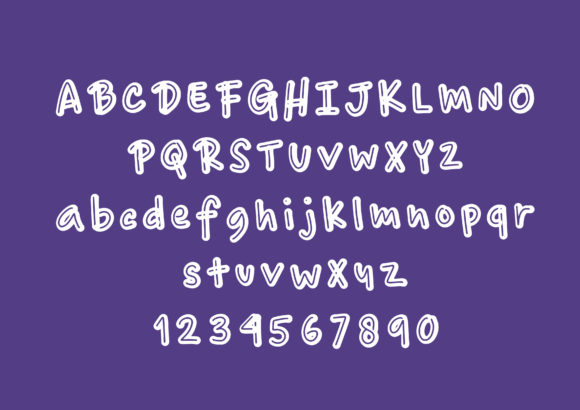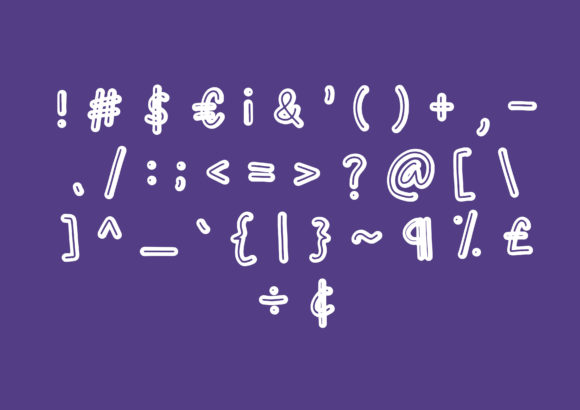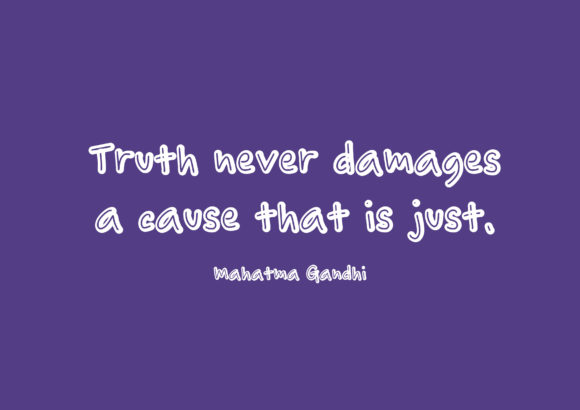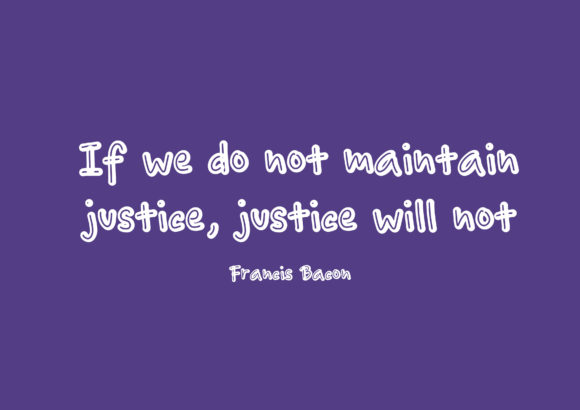
Introduction to Good Books Font Font
Fonts play a crucial role in design, and the Good Books Font font is a typeface that brings both character and versatility to any project. Whether you’re working on a branding project, a website, or a print design, the Good Books Font font offers a unique style that can elevate your work.
Good Books is a super fun, quirky and child themed display font.
It embodies playfulness and authenticity and is the perfect choice for any children activity or school project .
Key Features of Good Books Font Font
Why Choose Good Books Font Font?
The Good Books Font font is more than just a typeface – it’s a design tool that helps you communicate your message with style and clarity. Its unique character set and versatile design make it suitable for a wide range of applications, from elegant invitations to bold headlines.
With its carefully crafted letterforms and balanced proportions, the Good Books Font font ensures readability and visual appeal across all mediums.
What makes Good Books Font font special?
The Good Books Font font stands out with its unique design, exceptional readability, and versatility across various design applications.